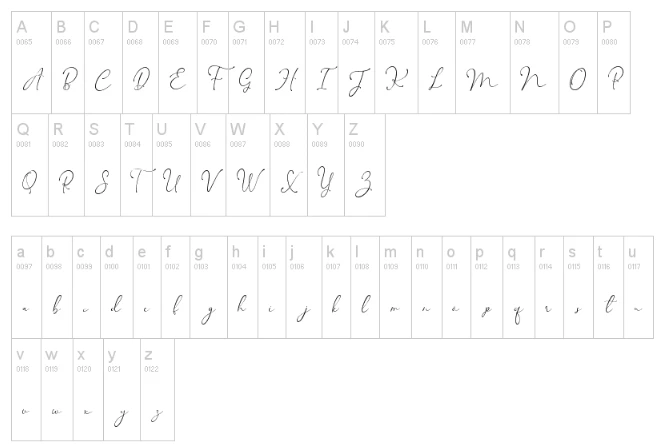
Kingsley is elevated calligraphy and script typeface. Sronstudio designed and shared the font. The typeface has an aesthetic vibe to it, which is what I appreciate best about it. The typeface has a polished structure that makes it stand out from the crowd. Kingsley Font has romantic and modern calligraphy that is ready to add a fresh and fabulous style to your work. Kingsley is a single font file with a lot of excellent characteristics.
The Kingsley may be used to make unique designs, covers, shop and store names, and logos. Kingsley is also suitable for branding projects, homeware designs, product packaging, or as a classy text overlay on any background image. The Font’s best quality is that it can be simply converted into any form.
| Name | Kingsley Font |
| Style | Script, Calligraphy |
| Designer | Sronstudio |